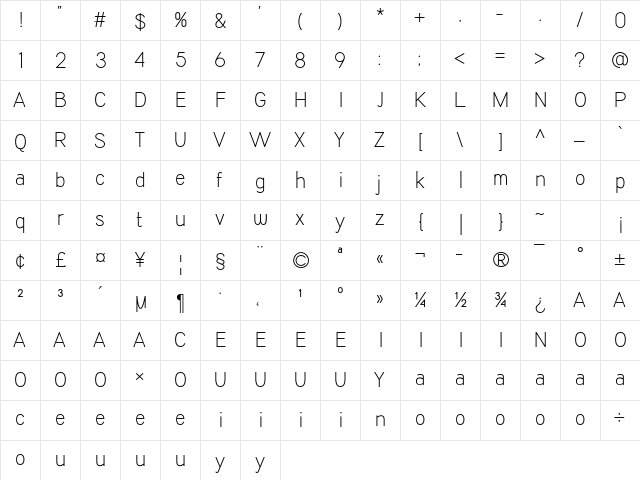
Kalyant Demo Light
| Foundry | Sign Studio |
| Designer | Sugiyanto |
Design Context for Kalyant Demo Typeface
Kalyant Demo offers clean, dependable letterforms without strong stylistic allegiance, making it a practical choice for designers who need flexibility. Its slender proportions lend an understated elegance to any composition.